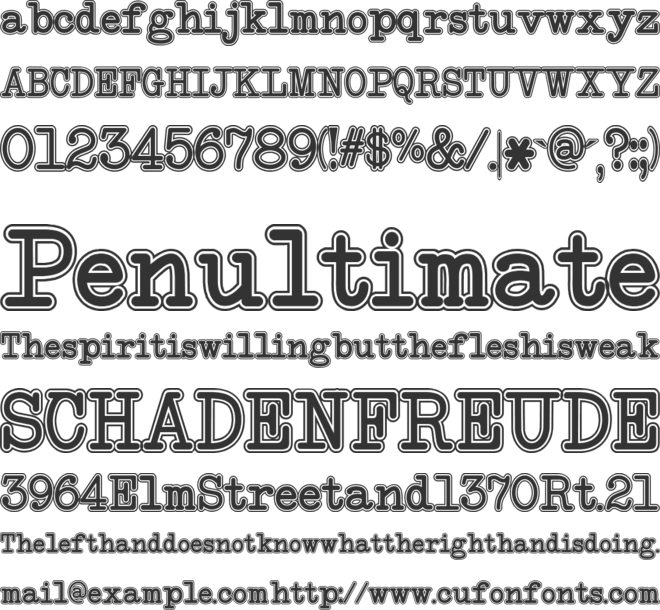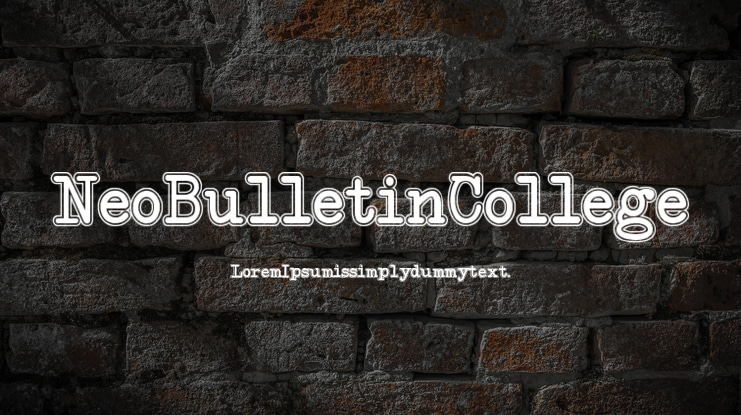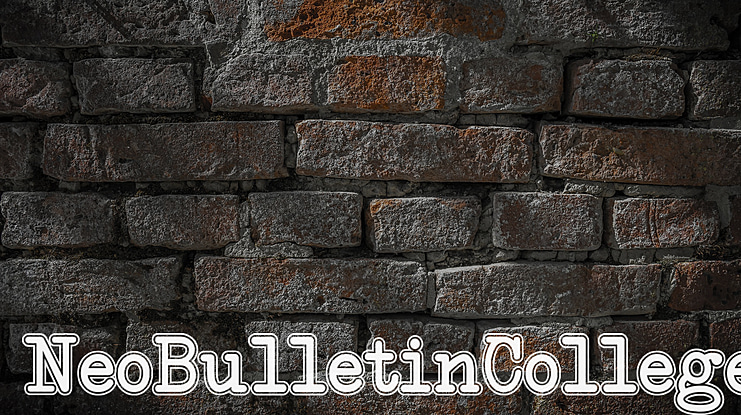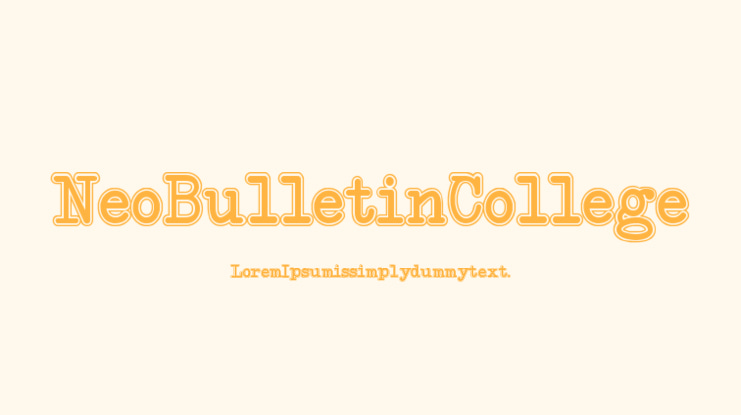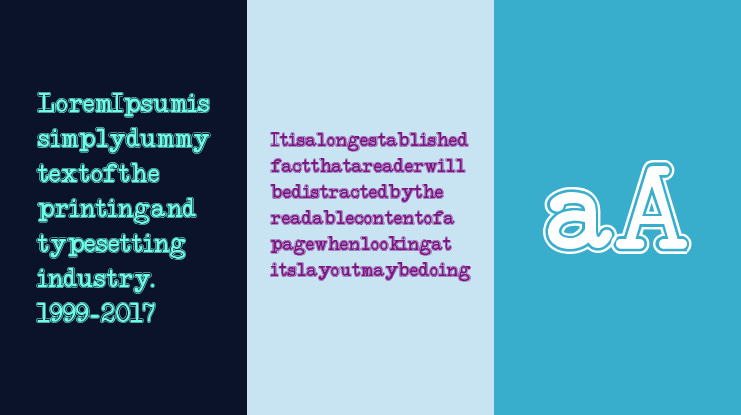
NeoBulletin College Font
NeoBulletin College, by Intellecta Design
NeoBulletin is a complete typewriter font, with complete sets in Latin, Cyrillic and Greek character s. In the same open type font y ou ge t also Central European, Vietnamese, Baltic, Turkish complete sets with all diacritic signs and punctuation marks plus extra characters belonging this ranges. The complete open type font has over 600 glyphs. You have total access to these resources using software like InDesign, Illustrator, QuarkXpress and others.